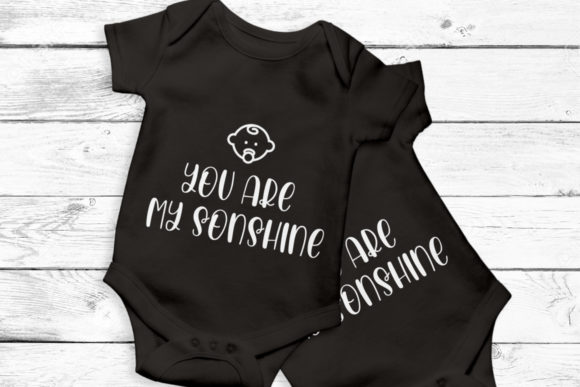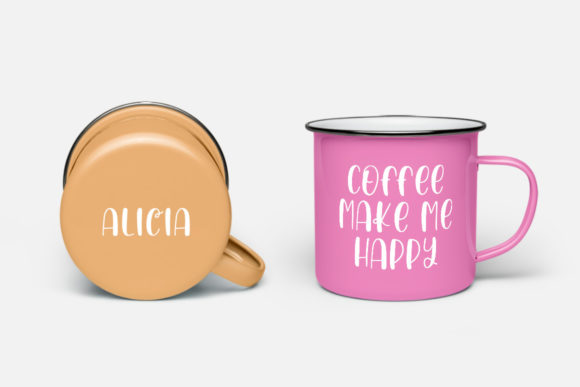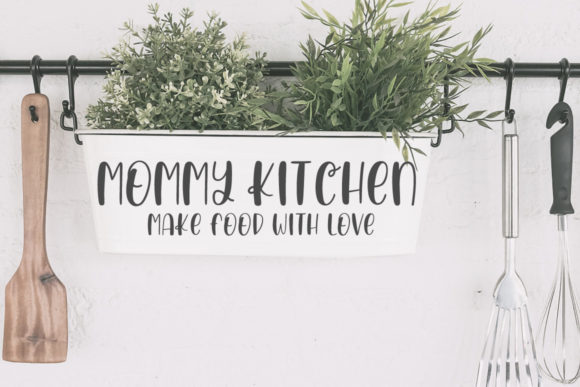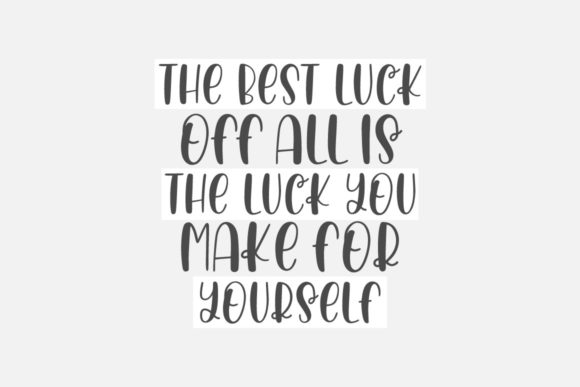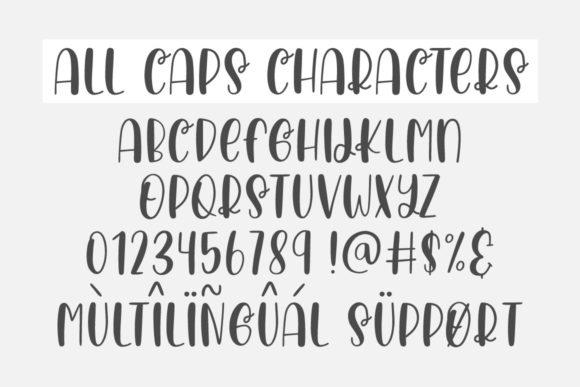
Introduction to Rustic Peach Font
Have you ever been working on a creative project and wished you had just the right font to bring your idea to life? For many designers, that perfect font is the key to making a project truly special. I still remember the moment I stumbled upon the Rustic Peach Font, and how it instantly brightened up my design space. Its friendly and approachable vibe made it the perfect fit for a children’s book I was working on.
The Rustic Peach Font is more than just a pretty face – it’s a valuable design resource that can add a touch of warmth and personality to any project. With its cool, laid-back feel, it’s perfect for cartoon-related designs, children’s creations, and school projects. Whether you’re a seasoned designer or just starting out, this high-quality font is sure to be a game-changer.
Key Features of Rustic Peach Font
- Unique blend of rustic and peach-inspired design elements, perfect for creative projects and design resources.
- High-quality font with a transparent background, ideal for use on any background or design element.
- Designed to be highly legible, with a clear and easy-to-read font style suitable for a variety of applications.
- Features a unique, hand-drawn aesthetic that adds a touch of personality to any design or creative project.
Honest Review: Rustic Peach Font
I recently had the chance to work with the Rustic Peach Font and I must say, it’s a fantastic addition to any design project. The font is perfect for those looking for a unique and elegant touch.
What works well: ✨ High quality design, versatile usage, and an attractive aesthetic make it a great choice for designers. The transparent background feature is also a huge plus, allowing for seamless integration into various creative projects. The font’s free download option is a bonus, making it accessible to designers of all levels.
Limitations: ⚠️ While the font is generally well-designed, it may not be suitable for projects requiring a more modern or edgy look. Additionally, some users may find the font’s aesthetic too soft or subtle.
Overall impression: I’m thoroughly impressed with the Rustic Peach Font and would highly recommend it for any design project requiring a touch of elegance and sophistication. Its high quality design, free download option, and transparent background feature make it a valuable resource for designers of all levels.
To get the most out of the Rustic Peach Font, use it in combination with other design elements to create a cohesive and visually appealing design. Experiment with different font sizes and styles to add depth and interest to your project.
The Rustic Peach Font is ideal for use in creative projects such as invitations, flyers, and brochures. Its high-quality design and transparent background make it perfect for use in digital and print designs.